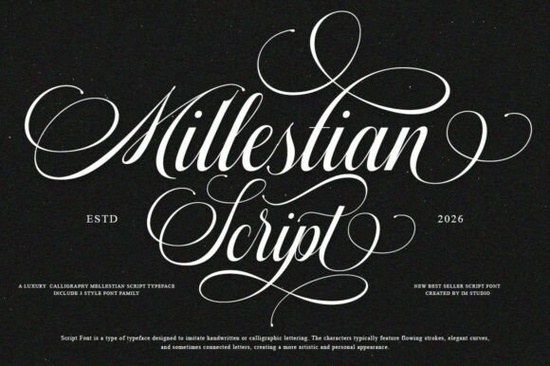
If you're looking for a script font that feels both timeless and fresh something elegant enough for wedding stationery but versatile enough for modern packaging or small business branding Mallestian Script Font fits quietly into that sweet spot. It’s not overly ornate, nor is it too minimal. Instead, it balances graceful letter connections with clean, readable forms making it especially useful if you’re designing for print or digital where clarity matters as much as charm.
What makes Mallestian Script easy to use in real projects?
One of the first things designers notice is how smoothly the letters connect. Unlike some script fonts that require manual kerning or ligature toggling, Mallestian Script was built with natural flow in mind. Its character variations like alternate capitals and swash endings are included and accessible right away thanks to PUA encoding. That means no extra software or workarounds: just open your design app (Illustrator, Canva, Affinity, or even newer versions of Word), type, and access flourishes from your keyboard’s standard character map.
This practicality extends to everyday use cases. Think of a local bakery updating their menu board, a handmade soap brand refreshing their product labels, or an indie author designing a book cover for a romance novel. Because the font stays legible at smaller sizes and avoids excessive swirls it works well across formats, from Instagram story text to foil-stamped invitation suites.
Where does it fit alongside other popular script fonts?
Mallestian Script sits comfortably between classic calligraphy and contemporary brush styles. If you’ve used Wonderful Vintages, you’ll appreciate Mallestian’s more restrained elegance. Compared to the bolder bounce of Alverina, it reads softer and more refined. And while Candies Honeymoon leans into playful romance, Mallestian keeps a subtle sophistication ideal if your brand voice is calm, confident, and quietly luxurious.
For wedding-focused projects, it shares some of the same quiet grace as Wedding Natalia, though with slightly tighter spacing and fewer dramatic ascenders. And unlike Messy Memoir, which embraces intentional imperfection, Mallestian gives you polish without stiffness perfect when you want warmth and professionalism in the same layout.
Who benefits most from using this font?
Print-on-demand sellers often need fonts that scale cleanly across mugs, tote bags, and greeting cards without pixelation or awkward spacing. Mallestian Script holds up well in vector exports and renders clearly even on textured substrates like kraft paper or linen-finish cards.
Small business owners especially in beauty, fashion, or boutique hospitality find it useful for logo lockups or branded email headers. Its feminine but not cutesy tone supports brands that want to feel personal without leaning into trendiness.
Crafters and hobbyists who make custom invitations, scrapbook pages, or digital planners also benefit. The consistent baseline and generous x-height mean it pairs easily with sans-serif companions (like Montserrat or Lato) for balanced hierarchy no guesswork needed.
It’s worth noting: while Mallestian Script shines in formal and lifestyle contexts, it’s less suited for tech, finance, or high-contrast signage where maximum readability trumps stylistic nuance. Save it for moments where tone and texture matter and let the quiet confidence of its curves do the rest.